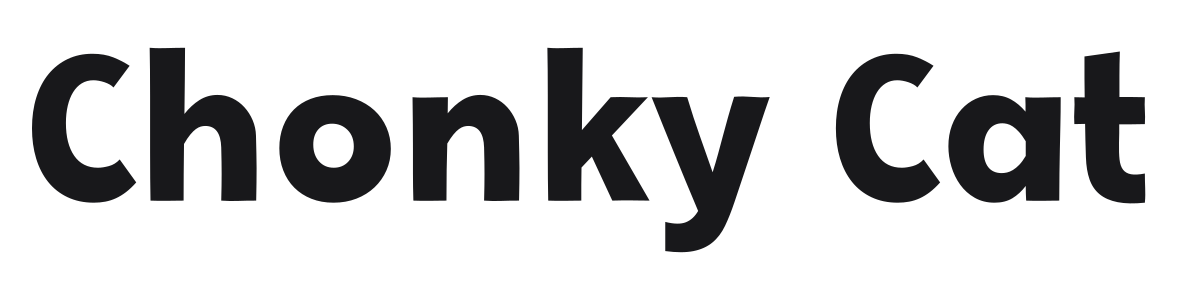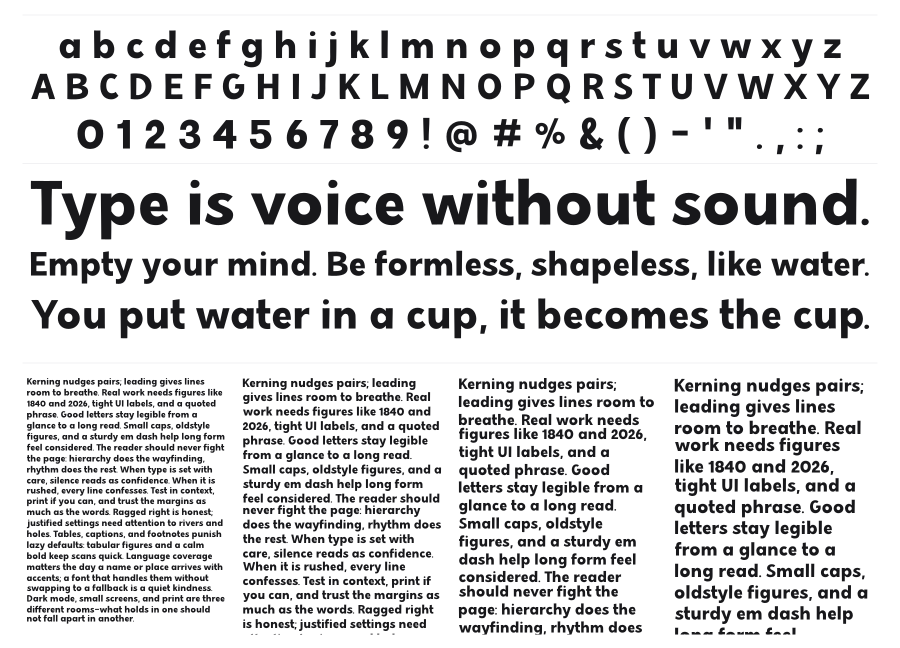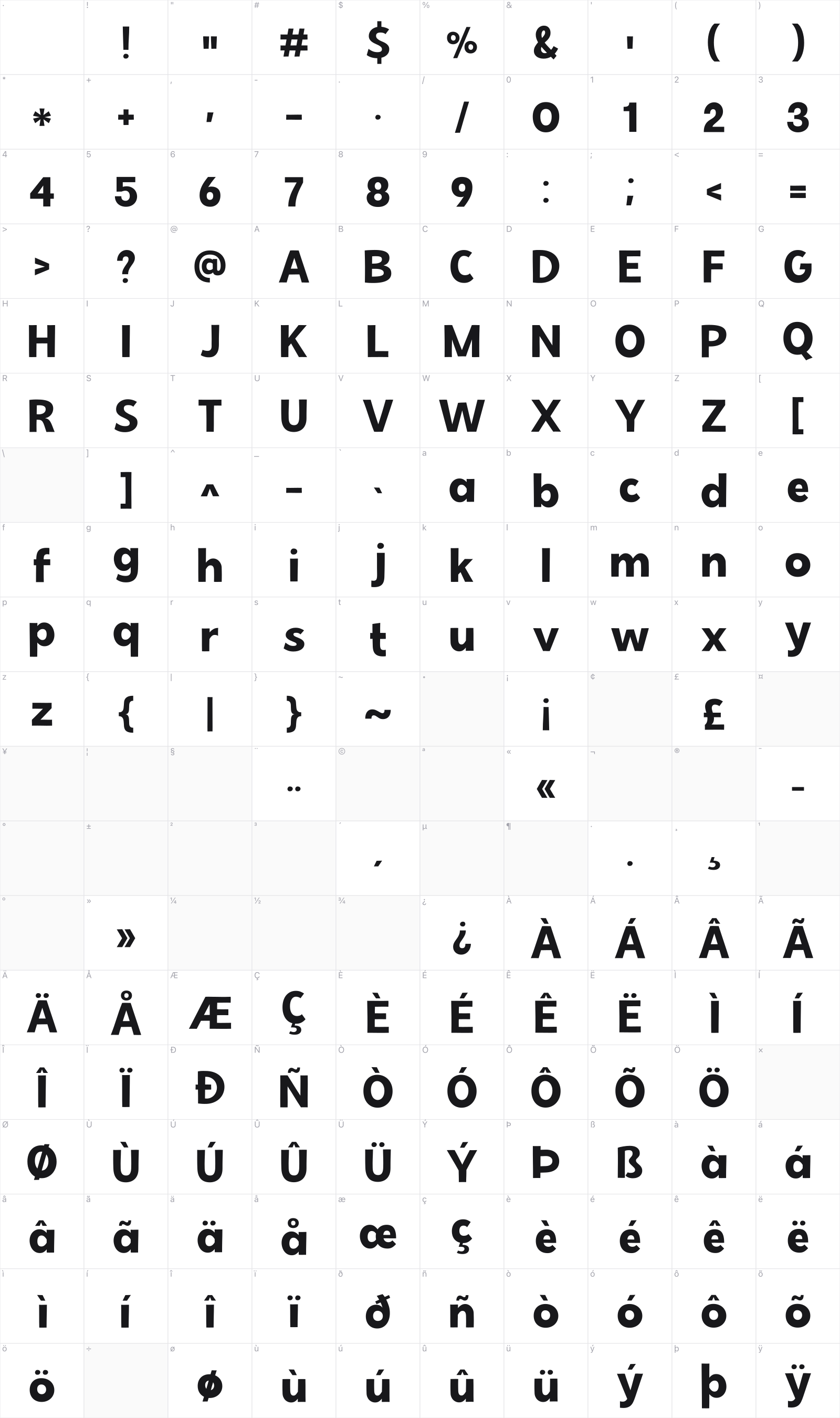
Chonky Cat
Chonky Cat is a bold rounded sans-serif with thick, full strokes and a wide, confident stance. The fully rounded terminals and generous proportions give it an immediately warm and approachable quality without sacrificing visual impact. It lands well on packaging, app icons, and anywhere a headline needs personality without pretension.